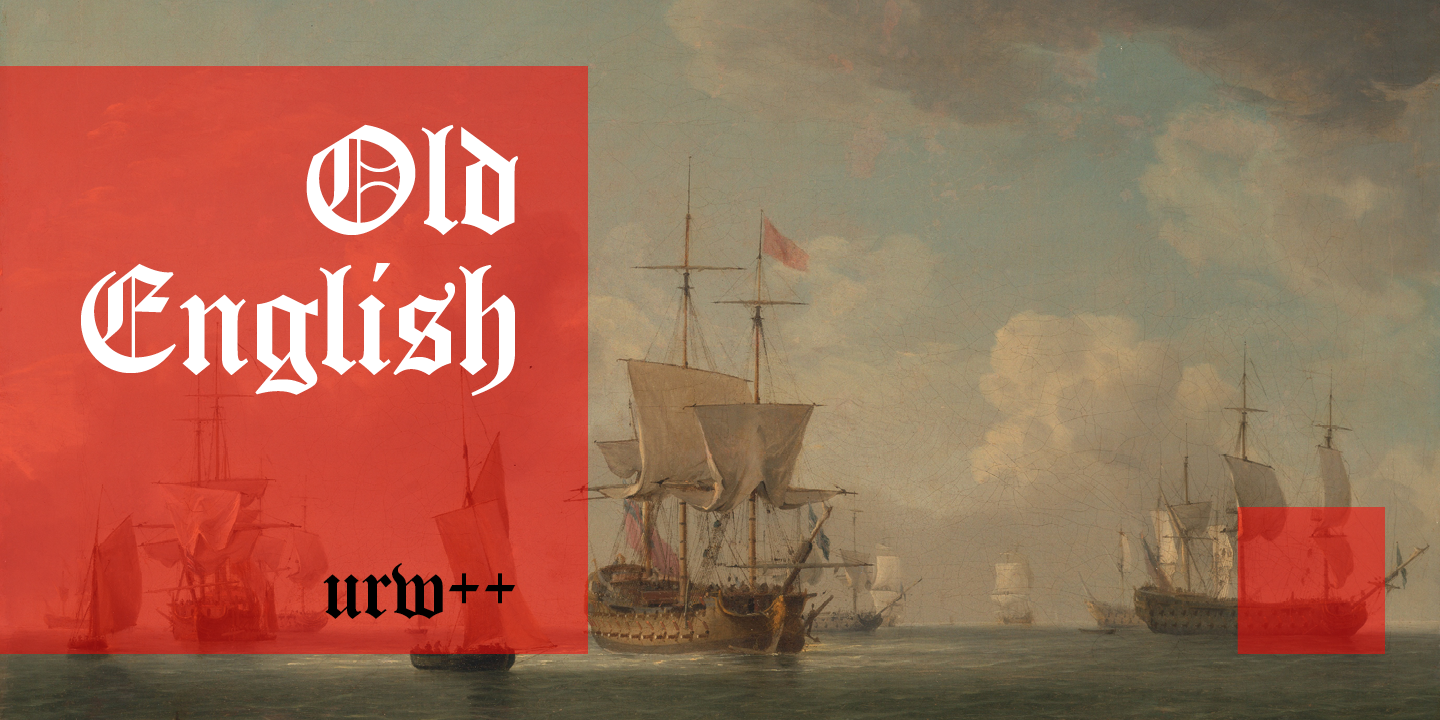
Old English Font Free Download is a classic, ornate blackletter typeface that evokes the historical beauty of medieval script. Perfect for designs that require an antique, Gothic, or vintage aesthetic, this font is ideal for invitations, signage, logos, book covers, and any creative project that needs to convey a sense of tradition and sophistication. Old English Font's intricate and bold design makes it a standout choice for designs with a historical or regal feel.
With Old English Font Free Download, you’ll receive a complete set of uppercase letters, lowercase, numbers, and essential punctuation, making it suitable for both print and digital applications. Whether you're creating elegant invitations, branding for a vintage shop, or a classic logo, this font adds dramatic flair and authenticity to your designs.
Add a touch of history and elegance to your projects with Old English Font Free Download. Its detailed, vintage style makes it the perfect choice for designs that need a bold, timeless, and regal look.